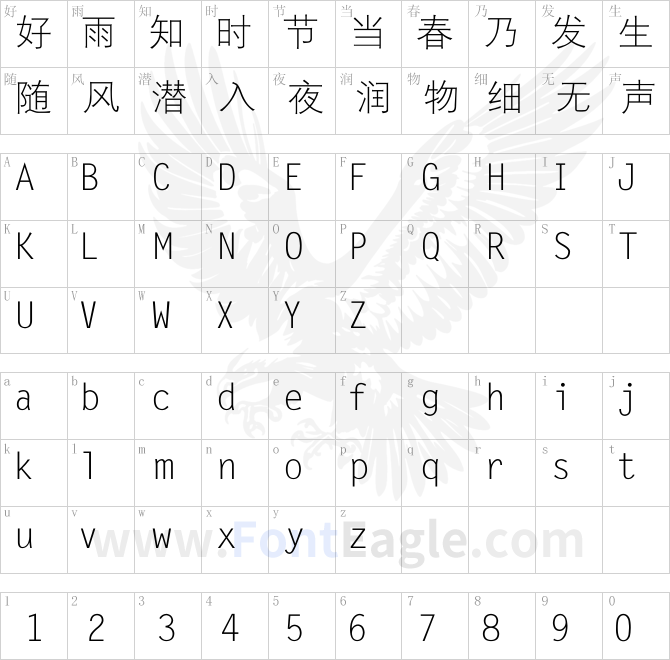
- Font name:方正细等线简体
FZXiDengXian-Z06S is a great font, widely used in graphic design, single-page menu design, poster design and other fields, and is deeply loved by designers.FZXiDengXian-Z06S download.